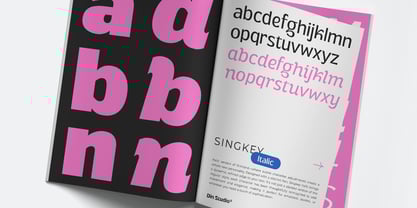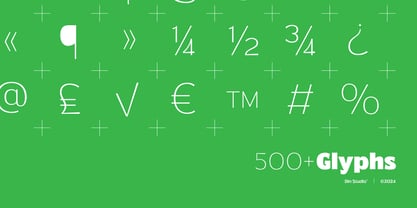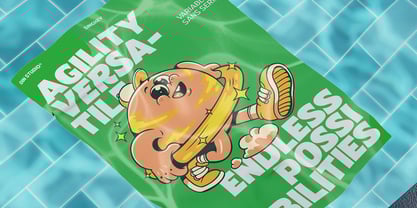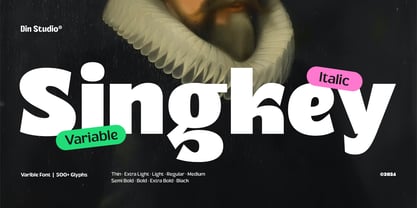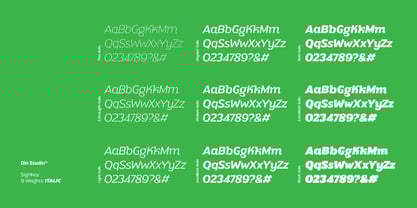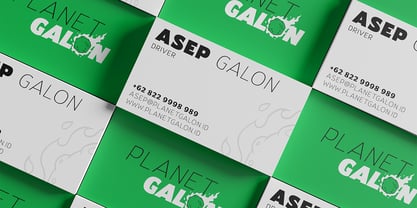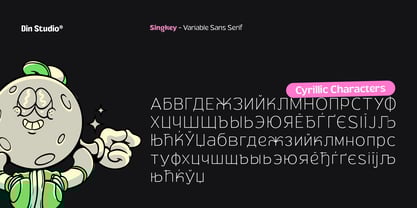
Singkey
by Din Studio
The Singkey Font Family was designed by Donis Miftahudin and published by Din Studio. Singkey contains 18 styles and family package options. More about this family
Singkey is a versatile sans serif font family designed in a clean and modern style. Made in 9 different weights and matching italic versions, Rimland offers complete freedom and flexibility for any project. This font family delivers a contemporary and professional touch to elevate your designs.
Singkey’s different weight fonts :
• Thin (Regular/Italic)
• Extra Light (Regular/Italic)
• Light (Regular/Italic)
• Regular (Regular/Italic)
• Medium (Regular/Italic)
• Semi Bold (Regular/Italic)
• Bold (Regular/Italic)
• Extra Bold (Regular/Italic)
• Black (Regular/Italic)
Features:
• Multilingual Supports
• Numerals and Punctuations
Designers: Donis Miftahudin
Foundry: Din Studio
Din Studio is a type design studio founded by Donis Miftahudin in 2017. The studio focuses on creating unique and visually appealing script and display fonts that stand out in the industry. Donis Miftahudin is a well-known type designer in the industry and has created several popular fonts under the Din Studio brand.The fonts designed by Din Studio are characterized by their distinct style and aesthetic appeal. The studio's designs often incorporate unique elements, such as intricate ligatures and swashes, to create fonts that are not only visually stunning but also highly functional. The studio's fonts are often used in a variety of applications, including branding, advertising, and editorial design.Din Studio's fonts are highly regarded in the design community and have received recognition from industry publications and organizations. The studio has been featured in several design blogs and magazines, and its fonts have won awards at prestigious design competitions.One of the hallmarks of Din Studio's work is its commitment to innovation and experimentation. The studio is constantly exploring new techniques and approaches to type design, pushing the boundaries of what is possible in the field. This dedication to innovation has helped Din Studio establish itself as one of the most exciting and influential type design studios in the industry.Overall, Din Studio is a dynamic and innovative type design studio that is pushing the boundaries of what is possible in the field. With its focus on unique and visually appealing script and display fonts, the studio is poised to continue making a significant impact in the design community for years to come.